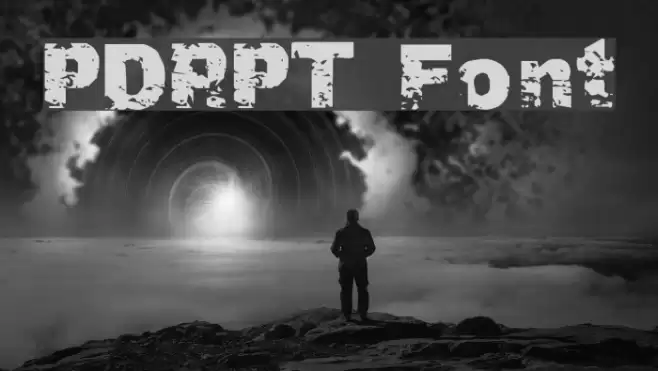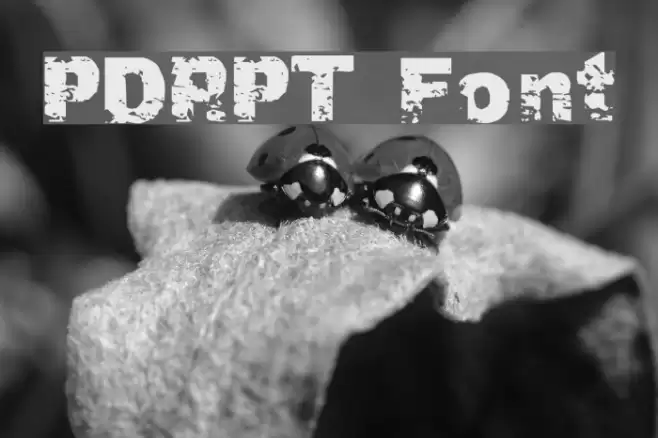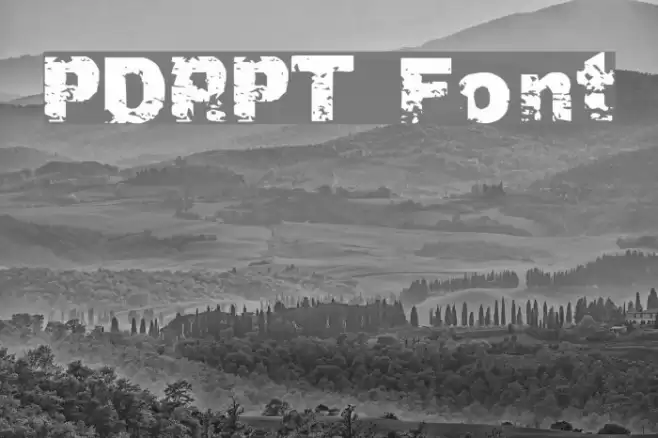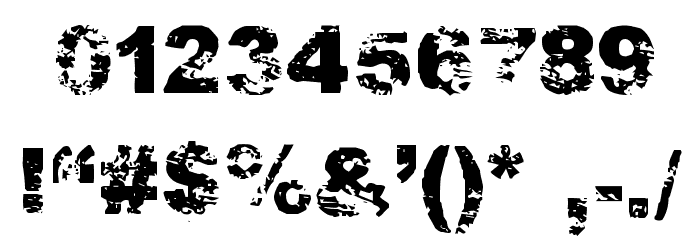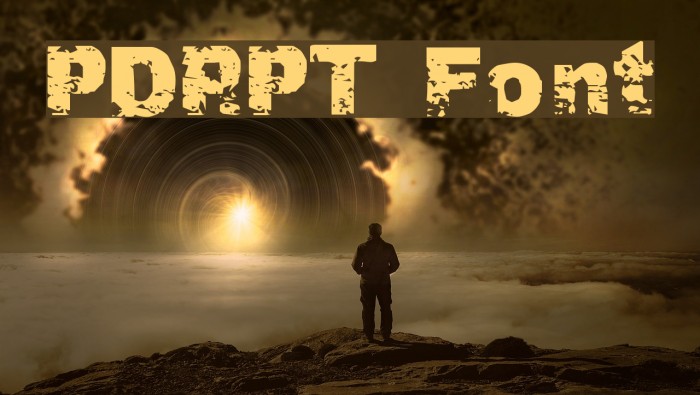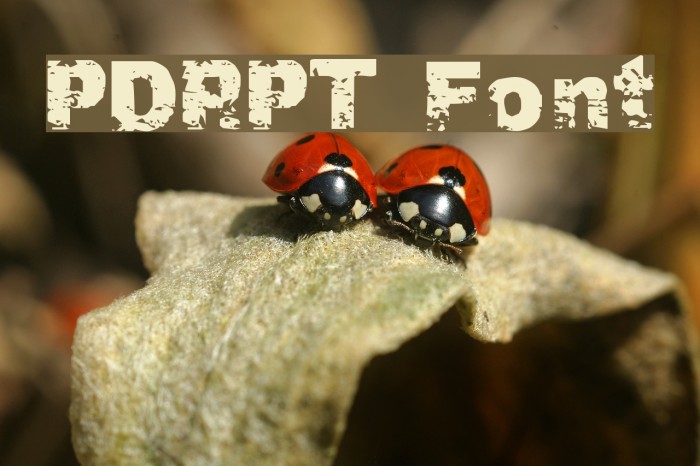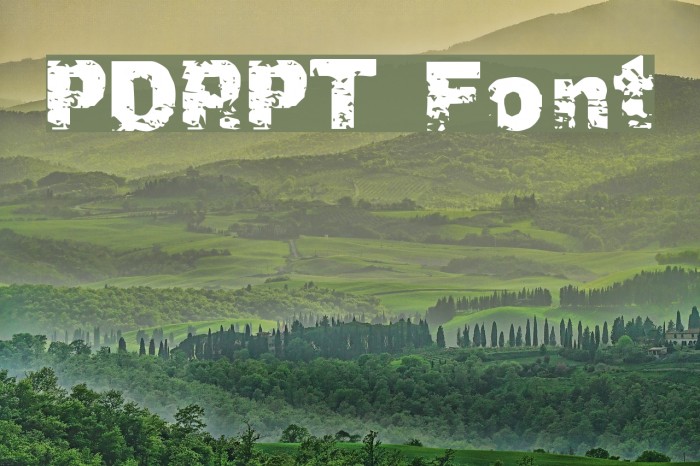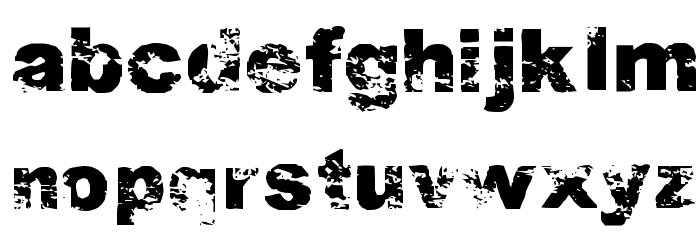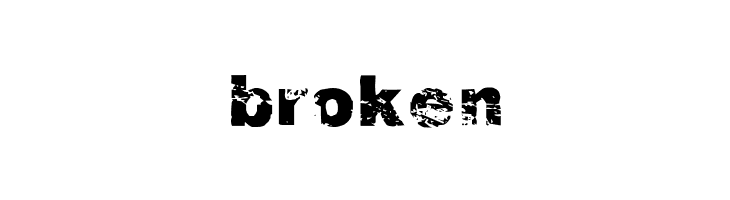
PDRPT Font
PDRPT Description
This font features a distressed, grunge style with a bold and impactful appearance. The characters are heavily textured, giving them a worn and rugged look, as if they have been weathered over time. This effect is consistent across all letters, numbers, and symbols, creating a cohesive and striking visual theme. The font maintains a strong presence, making it ideal for designs that require a bold statement. Despite its rough texture, the characters remain legible and distinct, ensuring readability while adding a unique aesthetic touch.
A bold, distressed font with a grunge texture and strong visual impact from Distorted Eroded fonts.
- Proposed Projects: Ideal for album covers, posters, urban-themed designs, and branding that requires a rugged, edgy look.
- Overall Style: Grunge, Urban, Edgy